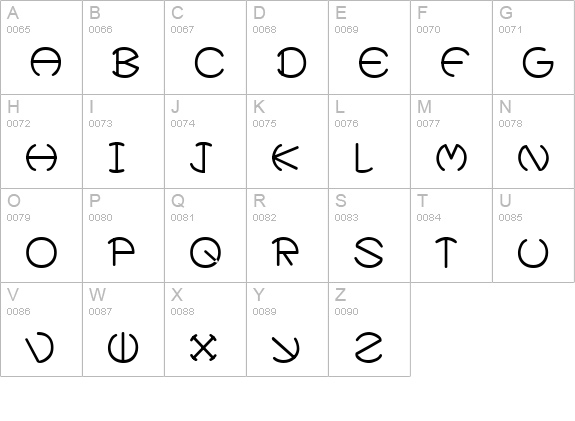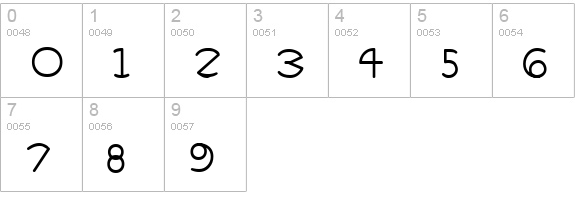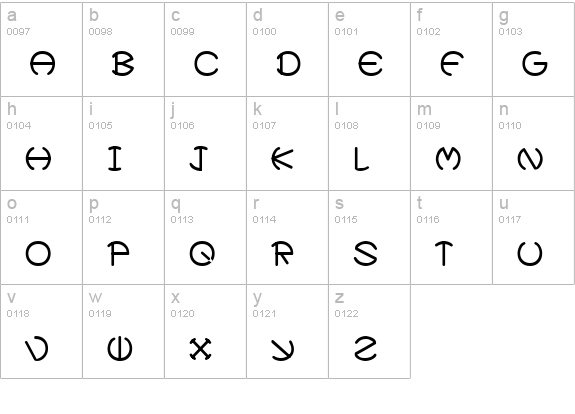
Xevius Medium is a balanced, medium-weight variant in the Xevius typeface family \xE2\x80\x94 well suited to sub-headlines, navigation, and balanced editorial work.
Xevius Medium font is a versatile and stylish typeface that strikes the perfect balance between modernity and elegance. Its clean lines and well-defined shapes make it ideal for a wide range of design projects, from branding to editorial design. With a medium weight that offers just the right amount of presence without being overpowering, Xevius Medium font is a go-to choice for creating eye-catching and professional designs. What makes Xevius Medium font even more appealing is that it is available for free download at FontsMarket.com. This means that you can easily access this high-quality font and use it in your projects without any cost involved. Whether you're a graphic designer, a web developer, or a creative enthusiast looking to enhance your work with a sophisticated typeface, Xevius Medium font is a must-have addition to your font library. Download Xevius Medium font for free today from FontsMarket.com and elevate your designs with its timeless appeal and versatile functionality.